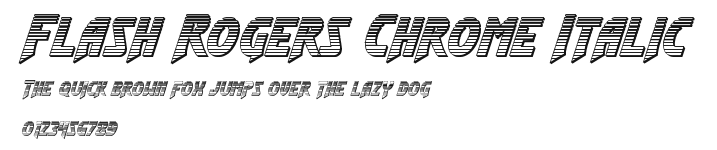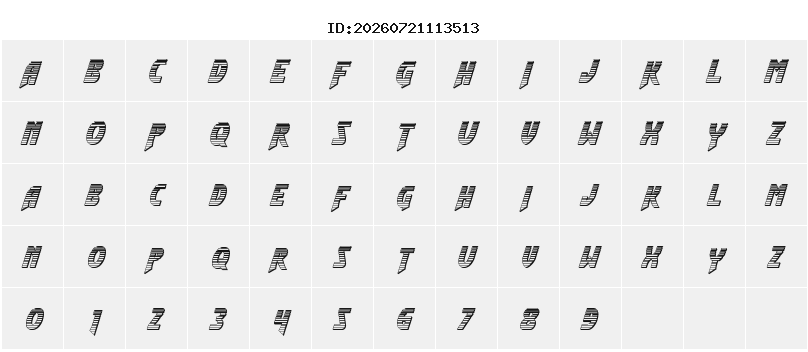
Flash Rogers Chrome Italic Preview
• Font Name: Flash Rogers Chrome Italic
• Full Font Name: Flash Rogers Chrome Italic
About Flash Rogers Chrome Italic.ttf
Flash Rogers Chrome Italic.ttf is a modern, elegant sans-serif font designed for ultimate readability and visual harmony. Perfect for branding, headlines, web design, and print materials.